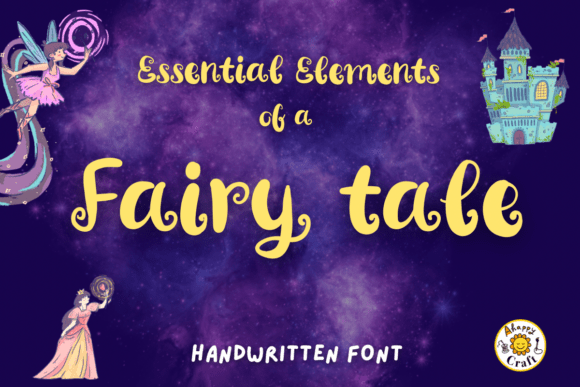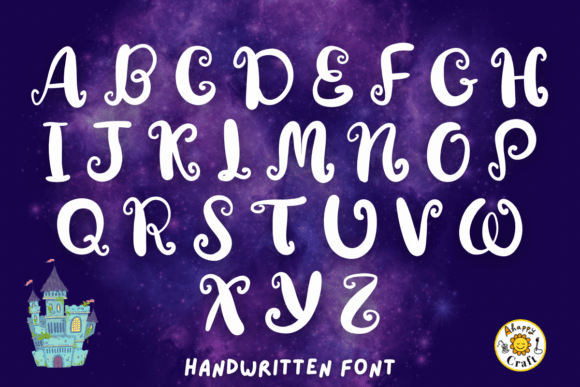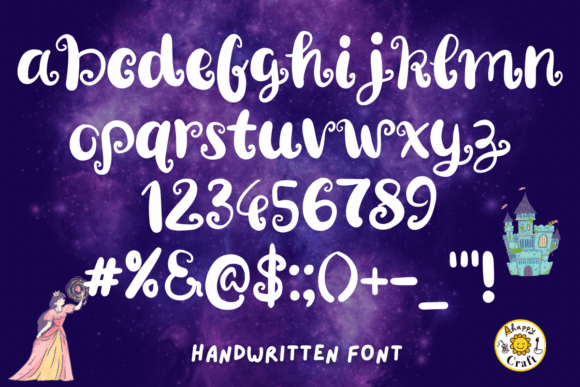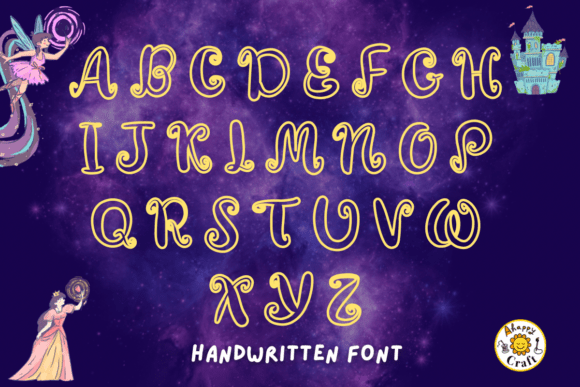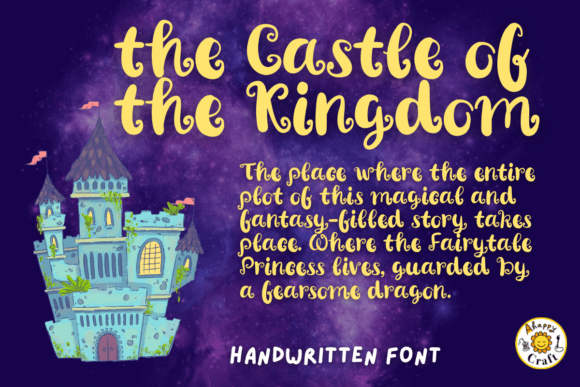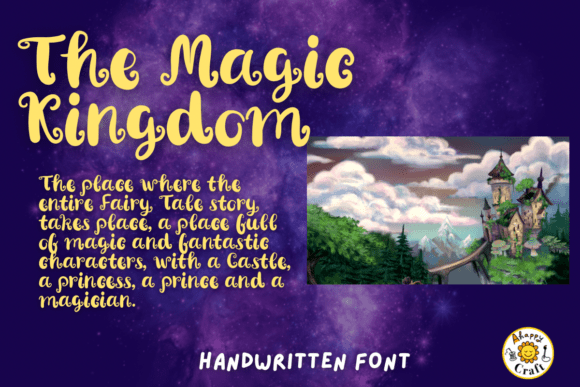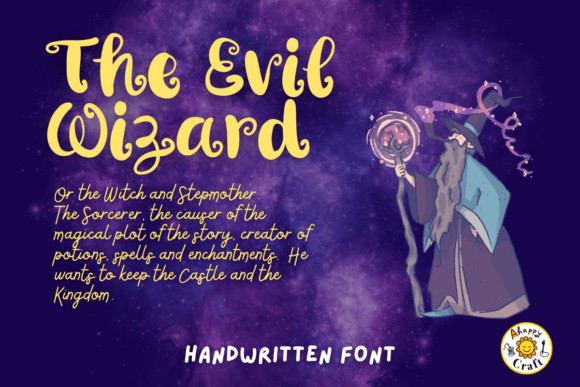
Get Lost in the Whimsy of Fairy Tale Font
Have you ever found yourself scrolling through Pinterest, stumbling upon a beautifully designed invitation or a charming menu board, and thought, ‘Wow, I wish I could create something that magical’? That’s exactly what happened to me the other day. I was captivated by a whimsical wedding invitation that featured a delicate, handwritten font – and I knew right then and there that I needed to get my hands on it.
Fairy Tale Font is a charming, cute handwritten font that’s perfect for adding a touch of magic to your creative projects. Whether you’re designing a children’s book, a wedding invitation, or a menu board, this font is sure to bring a smile to your customers’ faces. And the best part? It’s incredibly versatile – making it a valuable asset for designers of all levels.
Fairy Tale Font Key Features
- Unique Characteristics: The Fairy Tale Font features intricate, hand-drawn illustrations and ornate details, giving it a whimsical and romantic feel.
Fairy Tale Font Review
Overall, I think the Fairy Tale Font is a great choice for projects that need a whimsical, storybook feel. ✨ The font is highly customizable, allowing users to adjust the size, color, and even the texture of the letters to match their project’s aesthetic.
Some of my favorite features include:
However, I do have some concerns about the limitations of the font. ⚠️ For one, it can be quite heavy-handed in certain styles, making it difficult to read in large blocks of text. Additionally, the texture feature can sometimes look a bit too ‘busy’ or distracting.
Overall, I’d give the Fairy Tale Font 4 out of 5 stars. While it’s a great choice for many projects, it may not be the best fit for every design. With a bit of caution and careful usage, however, it can be a real showstopper. ✨
The Fairy Tale Font is ideal for use in children’s book design, fairy tale-inspired illustrations, and fantasy-themed designs. It can also be used in wedding invitations, party decorations, and other creative projects that require a touch of whimsy and fantasy.
To get the most out of the Fairy Tale Font, experiment with different font sizes, styles, and combinations. Use it in combination with other design elements, such as illustrations and graphics, to create a unique and engaging design. Additionally, consider using the font in a bold or italic style to add emphasis and create visual interest.